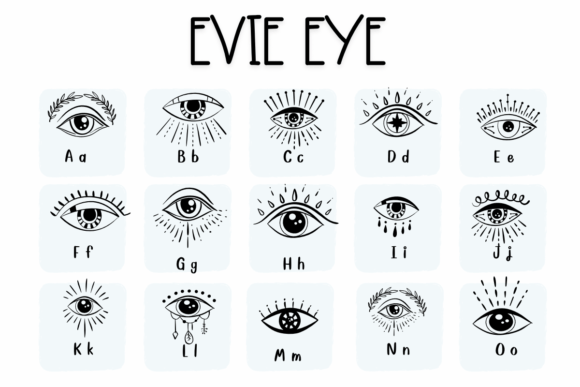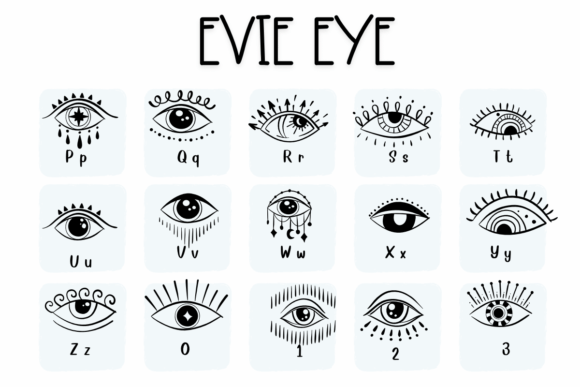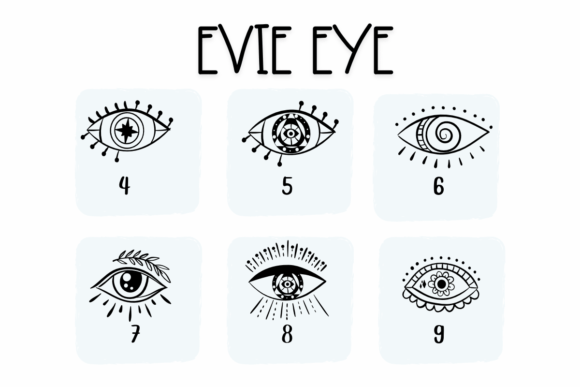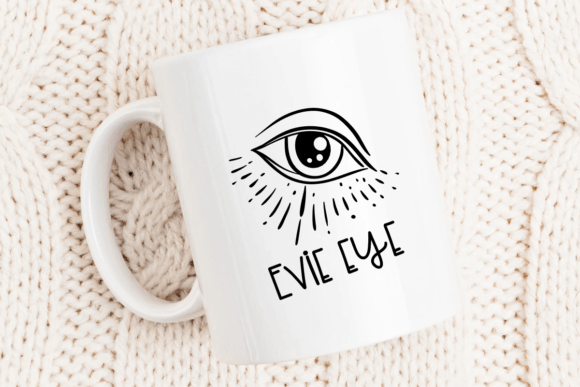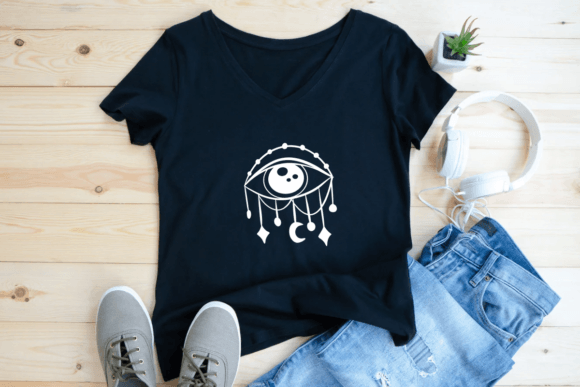
Evil Eye Font: A Protective and Unique Typography for Designers and Crafters
In the world of typography, fonts come in various styles and designs, each with its own unique character and purpose. One such fascinating font is the “Evil Eye” font, where each letter is replaced with a picture of the evil eye symbol. This ancient symbol is believed to protect against bad luck and negative energies in many cultures. In this article, we’ll explore the concept of the Evil Eye font, its significance, and how designers and crafters can utilize this distinctive typography in their work.
The Significance of the Evil Eye Symbol
The evil eye symbol, also known as the “nazar” or “mati,” has been a part of various cultures and traditions for thousands of years. It’s believed to ward off evil spirits, bad luck, and negative energies. The symbol typically features a blue or glass bead with a white or black pupil, often surrounded by a circle or teardrop shape. This iconic design has been used in jewelry, home decor, and other forms of art to bring protection and good fortune.
What is the Evil Eye Font?
The Evil Eye font takes the traditional symbol and incorporates it into a typographic system. Each letter, number, and punctuation mark is replaced with a corresponding image of the evil eye symbol. This creates a unique and eye-catching text that not only conveys a message but also serves as a protective charm. When you type with this font, you’re essentially writing with tiny pictures that are meant to keep you safe from harm.
Using the Evil Eye Font in Design and Crafting
The Evil Eye font offers a wide range of creative possibilities for designers and crafters. Here are a few ways to utilize this font:
- Graphic Design: Use the Evil Eye font in graphic design projects such as logos, posters, and social media graphics to add a touch of mysticism and protection.
- Stationery and Invitations: Add a protective charm to your stationery, invitations, and greeting cards with the Evil Eye font.
- Crafting: Incorporate the Evil Eye font into your crafting projects, such as jewelry making, scrapbooking, and DIY home decor.
- Digital Art: Experiment with the Evil Eye font in digital art software to create unique and captivating designs.
Benefits of Using the Evil Eye Font
The Evil Eye font offers several benefits for designers and crafters:
- Unique and Eye-Catching: The Evil Eye font adds a distinctive touch to any design or crafting project.
- Protective Charm: The evil eye symbol is believed to bring protection and good fortune, making it a thoughtful addition to gifts and personal items.
- Cultural Significance: The Evil Eye font allows designers and crafters to tap into the rich cultural heritage of the evil eye symbol.
The Evil Eye font is a unique and captivating typography that offers designers and crafters a chance to add a touch of mysticism and protection to their work. With its rich cultural significance and eye-catching design, the Evil Eye font is sure to inspire creativity and bring good fortune to those who use it.